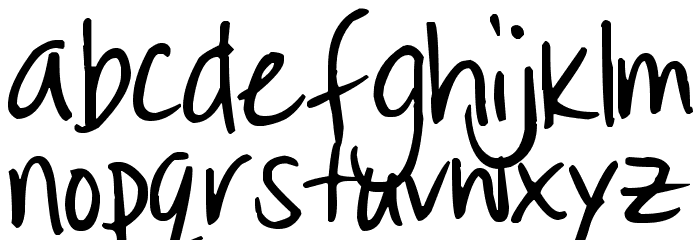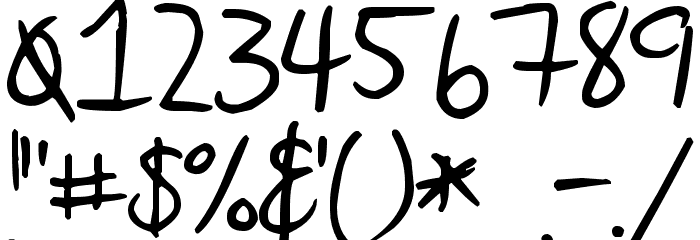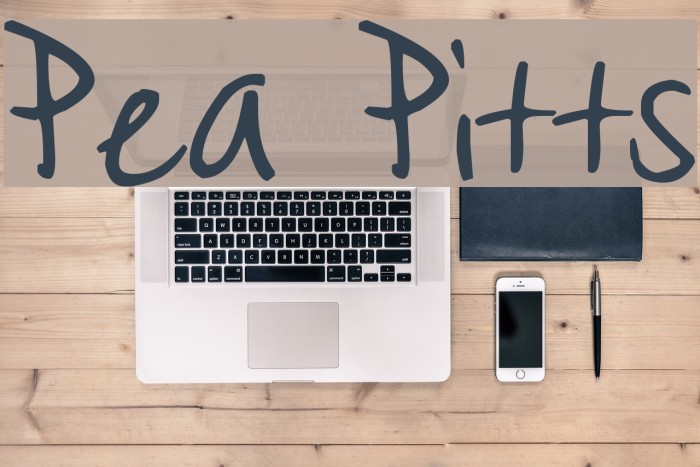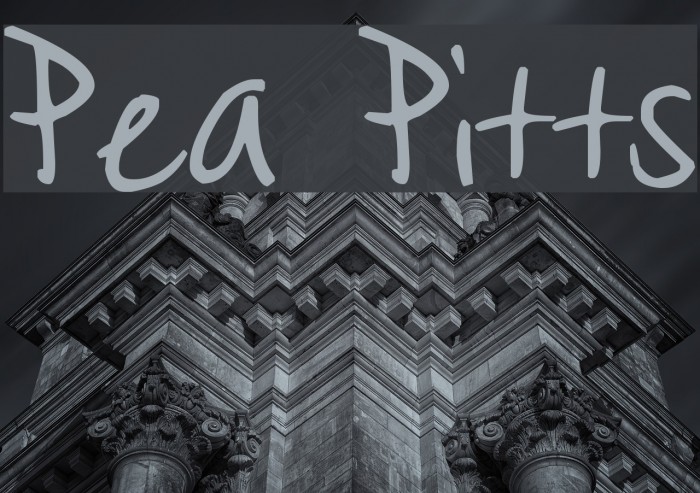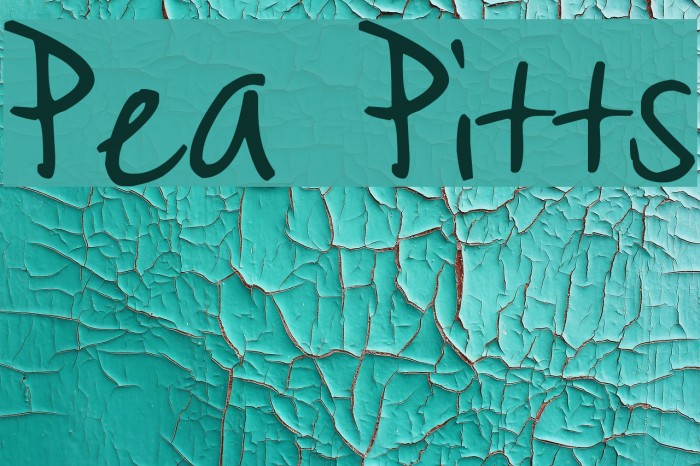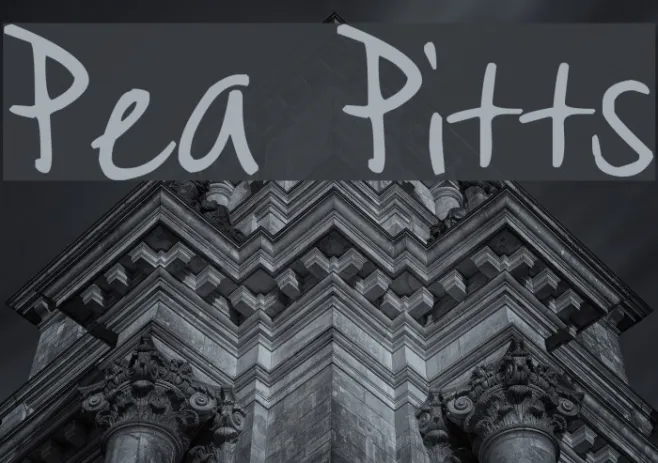
Pea Pitts Font
This font features a playful and informal handwritten style, characterized by its casual and slightly irregular letterforms. The strokes are bold and consistent, giving it a lively and approachable appearance. The uppercase and lowercase letters maintain a cohesive look, with a slight slant that adds to its dynamic feel. The numbers and special characters are crafted with the same playful touch, making the font versatile for various creative projects. Its overall appearance is friendly and engaging, suitable for designs that aim to convey a personal or whimsical tone.
A playful, handwritten font with bold, consistent strokes and a casual style.
- Proposed Projects: Ideal for greeting cards, children's books, playful branding, and personal projects.
- Category: Handwritten
- Overall Style: Playful
- Use Case: Headlines, Logos, Informal Text